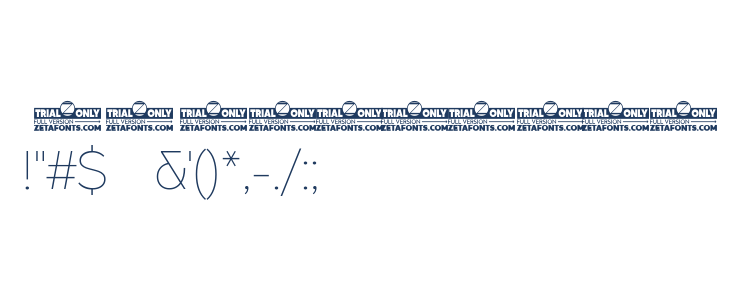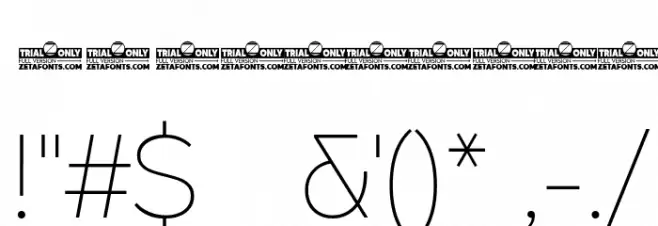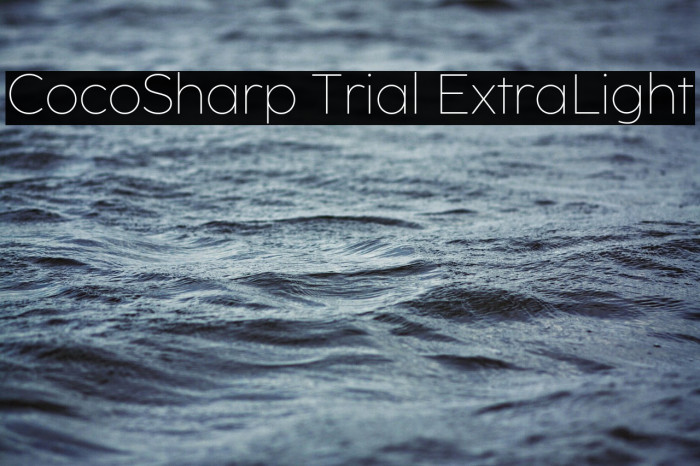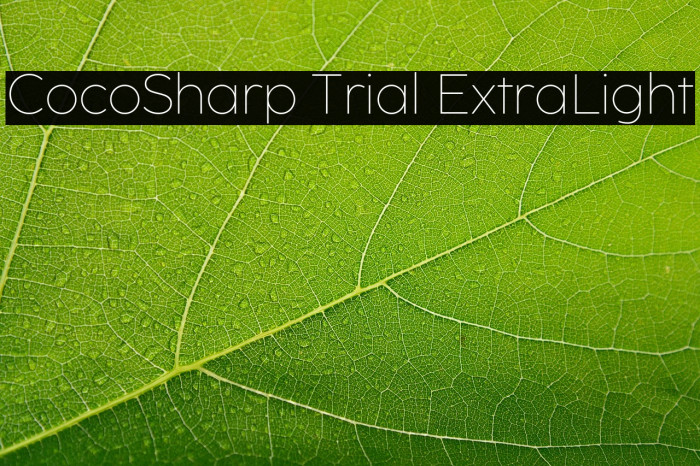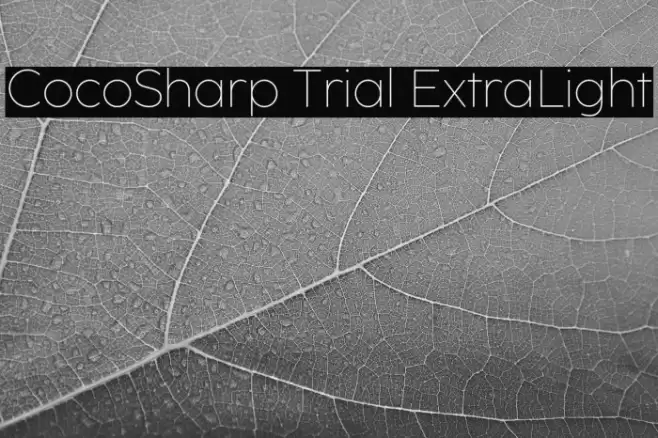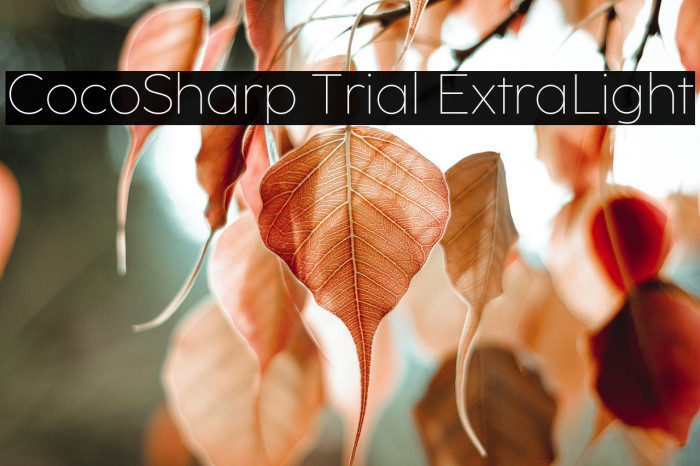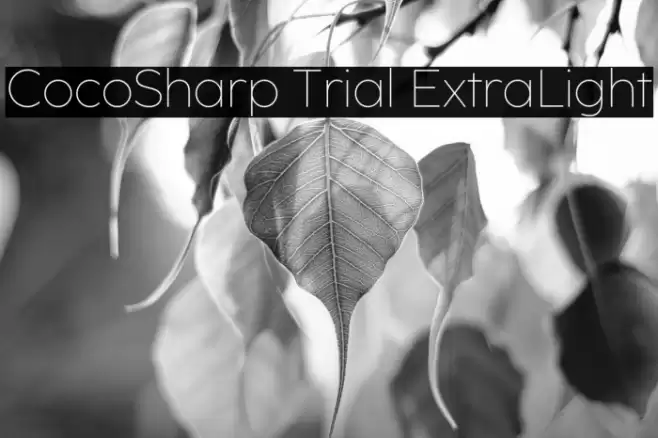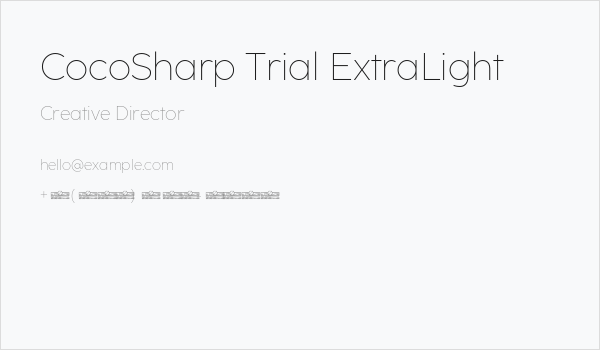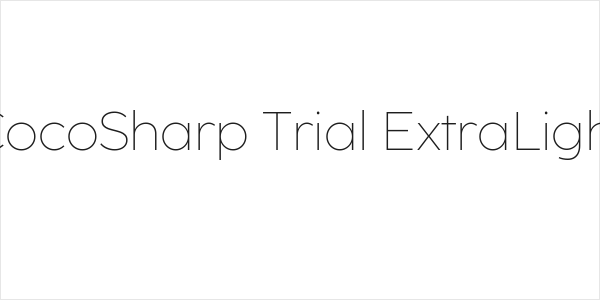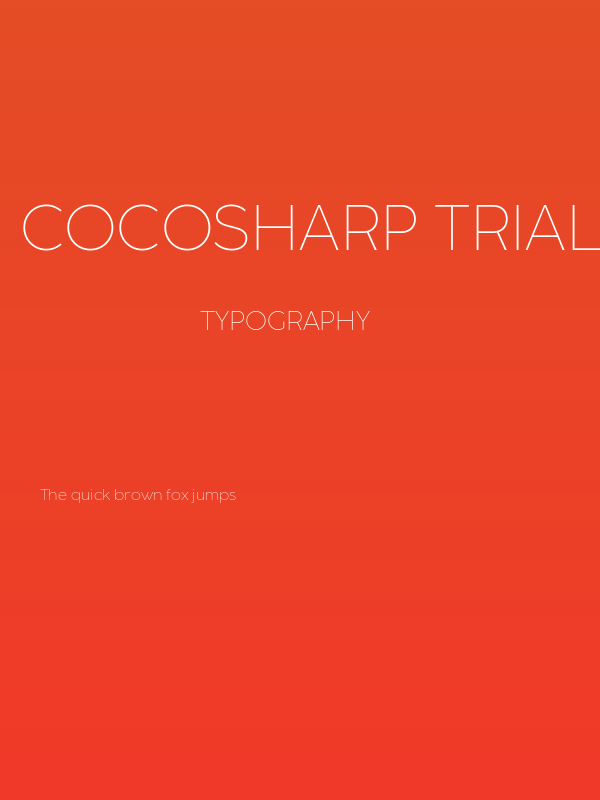
CocoSharp Trial ExtraLight Font
CocoSharp Trial ExtraLight Description
This font features a clean and minimalist design with a focus on simplicity and readability. The characters are crafted with a uniform stroke width, giving it an extra light appearance. The sans-serif style contributes to its modern and sleek look, making it suitable for contemporary design projects. The uppercase and lowercase letters maintain a consistent geometric form, while the numerals and special characters are designed to complement the overall aesthetic. The font's elegance and clarity make it versatile for various applications.
| Proposed Projects | Ideal for branding, editorial design, digital interfaces, and minimalist posters. |